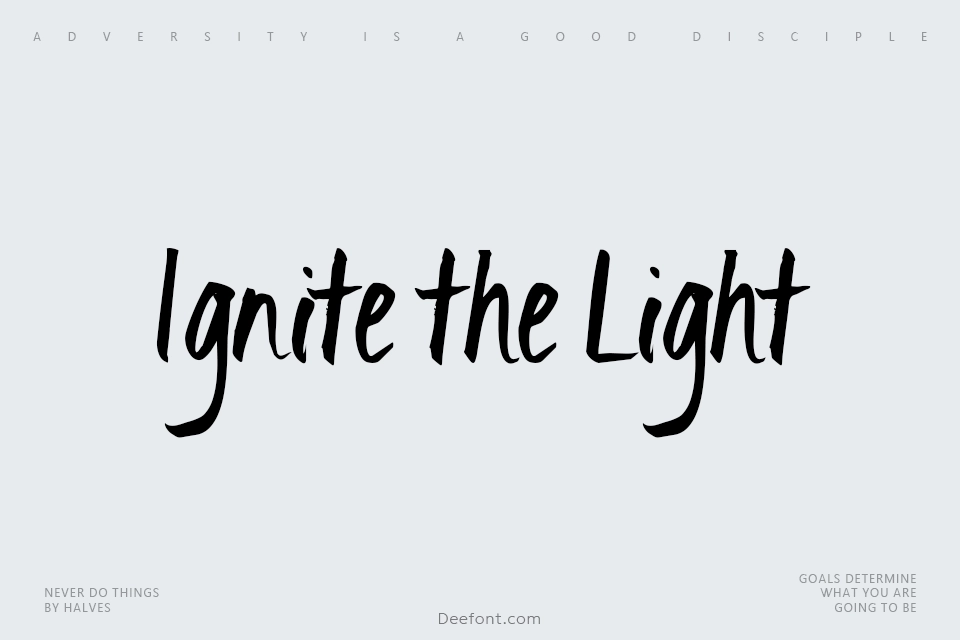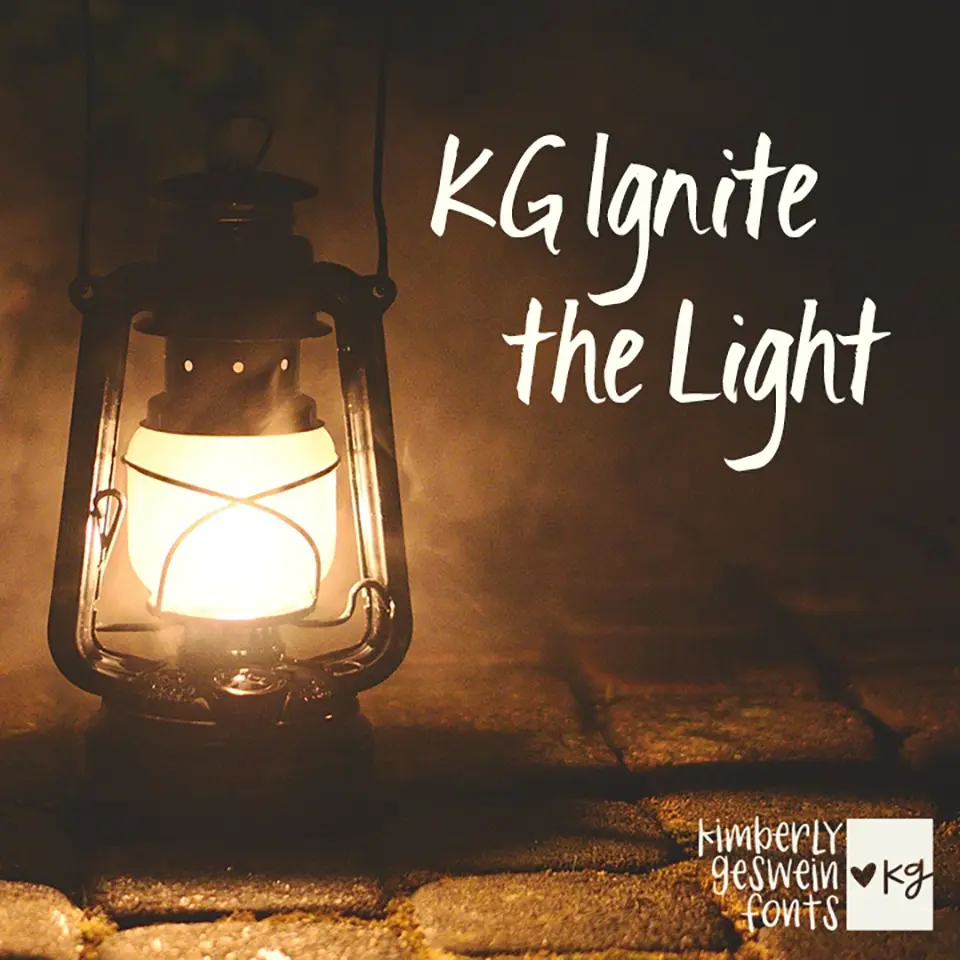
Ignite the Light Font
Ignite the Light is a dynamic handwritten brush font featuring bold, expressive strokes with artistic flair and flowing lines. Created with natural-looking characteristics, this font combines casual elegance with playful irregularity, making it perfect for creative projects. The varying thickness and exaggerated curves give it a personal, energetic appeal ideal for greeting cards, posters, and branding that demands a distinctive, artistic touch.